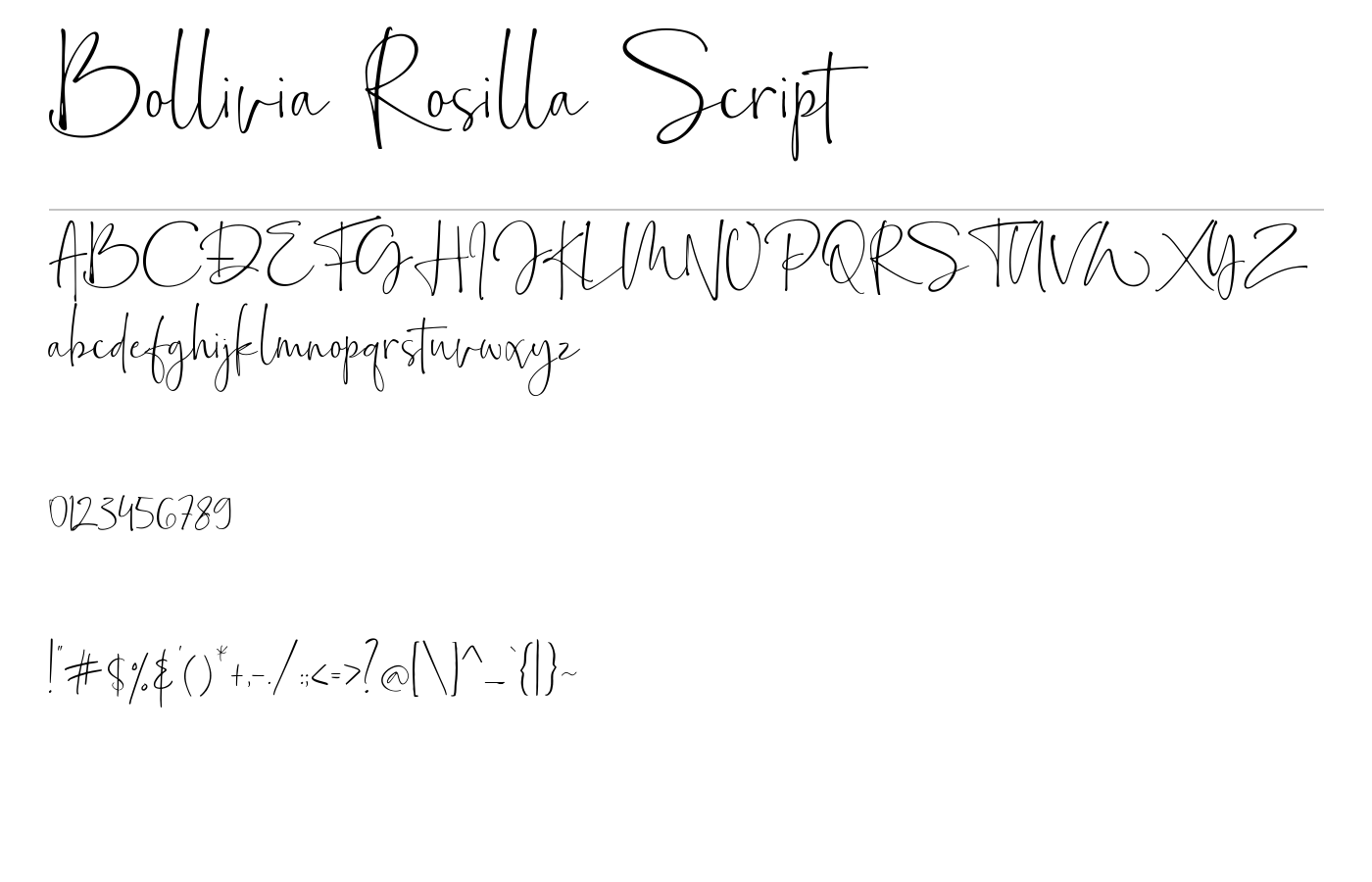
Bollivia Rosilla Script is a delicate, handwritten script font with thin, uneven strokes and a casual, airy feel. Its tall, slender letterforms and playful loops make it perfect for adding a personal, artistic touch to invitations, branding, and creative projects that seek a whimsical and elegant style. This font works best in display use where its unique charm can truly stand out.
Bollivia Rosilla Script Font
About Bollivia Rosilla Script Font
| Font family | Bollivia Rosilla Script Font |